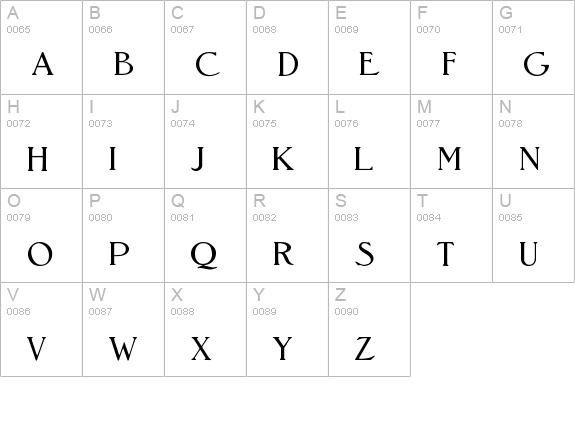
Bulfinch HPLHS Font Details
Introducing Bulfinch HPLHS font - a stunning display typeface that effortlessly combines elegance with a touch of gothic charm. Inspired by classic literature and vintage aesthetics, this font exudes a timeless appeal that is perfect for adding a touch of sophistication to your design projects. With its intricate details and unique character shapes, Bulfinch HPLHS font is sure to captivate and impress. Whether you're designing invitations, posters, or branding materials, this font will elevate your work to new heights. The best part? Bulfinch HPLHS font is available for free download at FontsMarket.com. Don't miss out on the opportunity to enhance your designs with this exquisite and versatile typeface. Download now and let your creativity shine with Bulfinch HPLHS font.